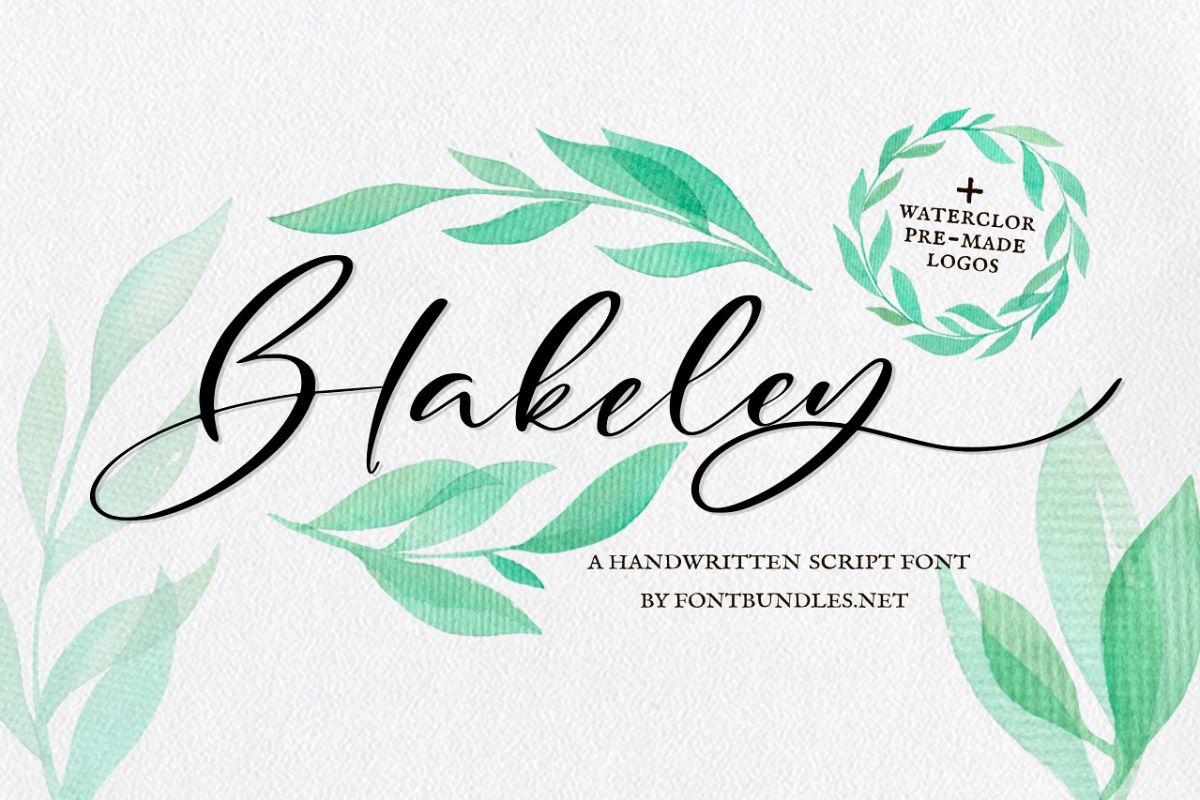
Blakeley Script Font & Watercolor Logos
Blakeley Script Font & Watercolor Logos- it'a  a handwritten script font , 9 pre-made watercolor logos and 21 watercolor elements